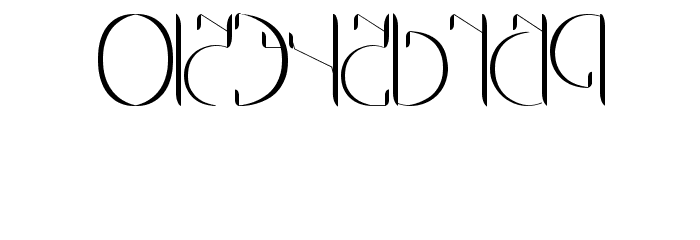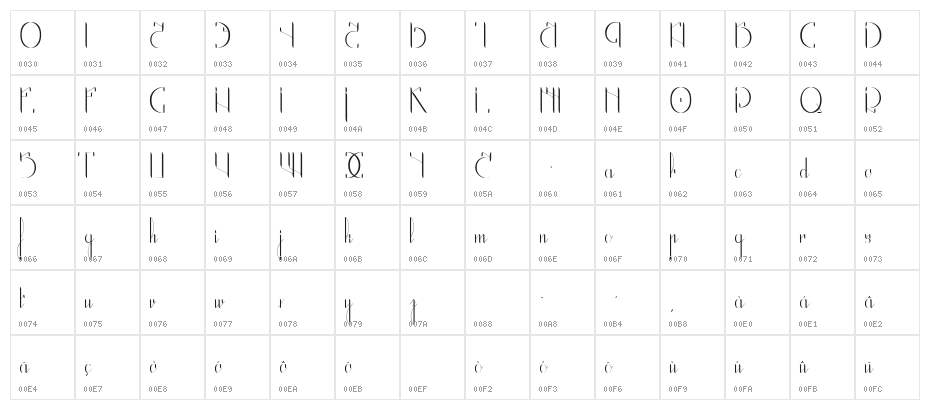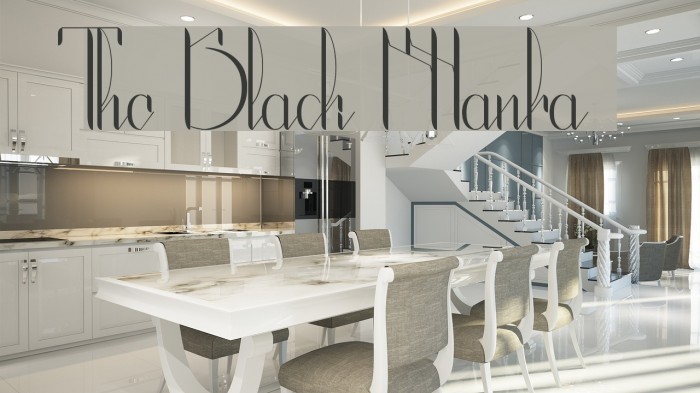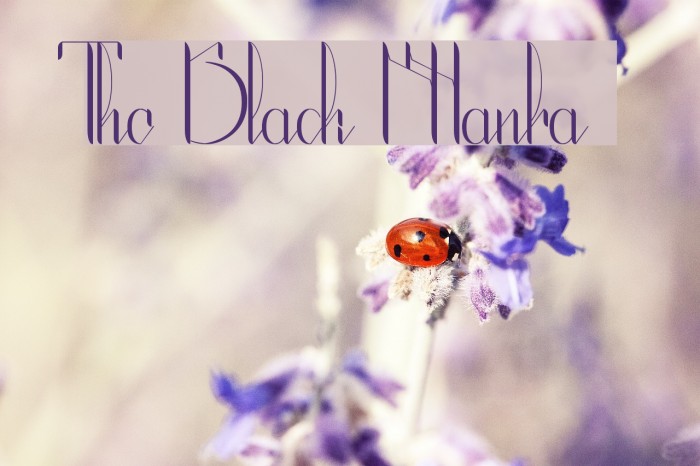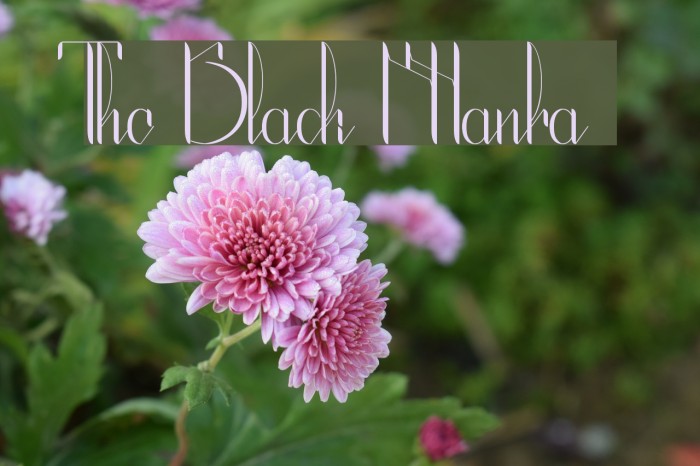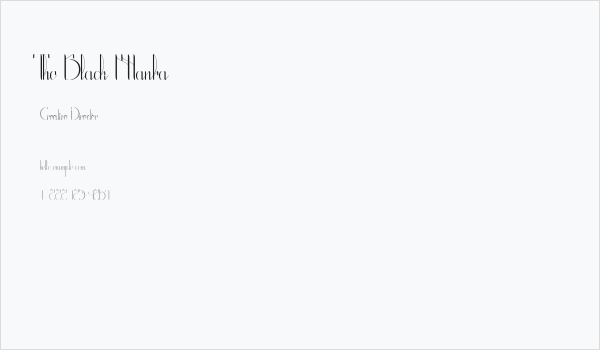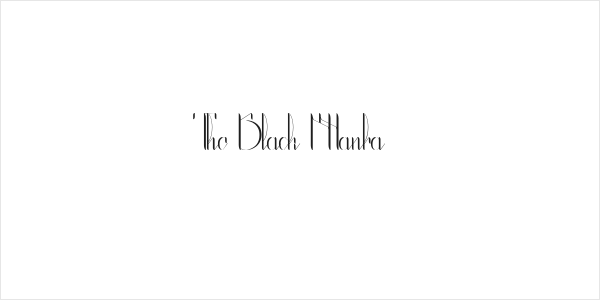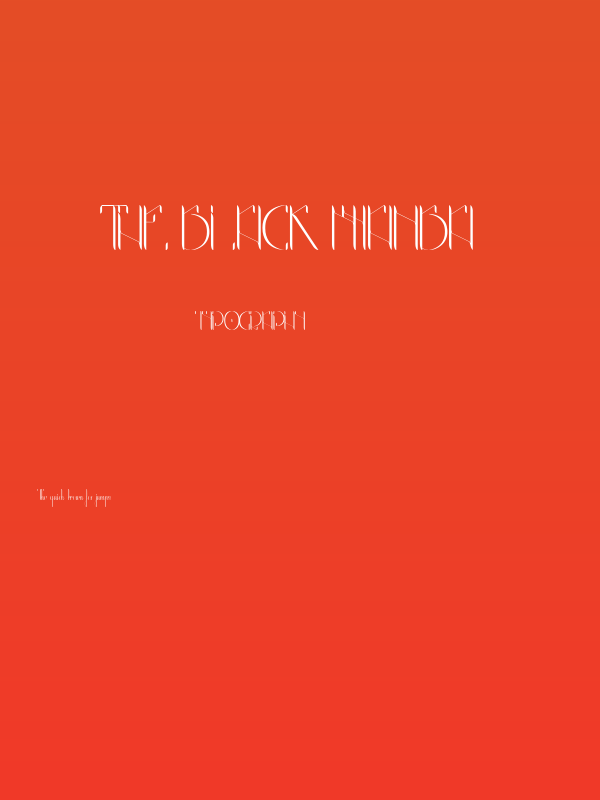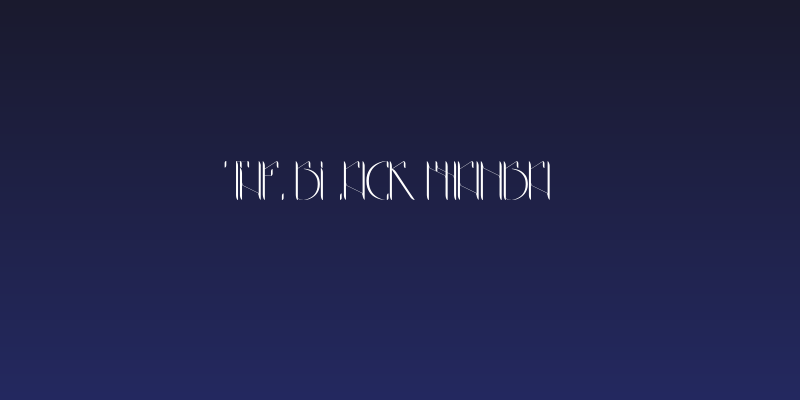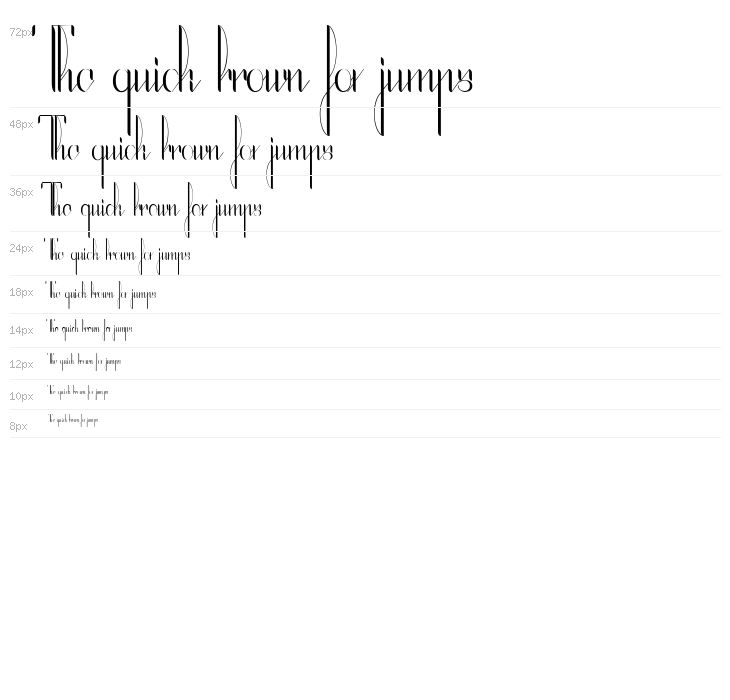
The Black Manba Font
The Black Manba Description
This font features a highly stylized and decorative design, characterized by its elongated and narrow letterforms. The strokes are thin with a high contrast between thick and thin lines, giving it an elegant and sophisticated appearance. The uppercase letters are particularly distinctive, with unique shapes and curves that create a sense of movement and flow. The lowercase letters maintain a similar style, with some characters featuring extended ascenders and descenders. The numerals and special characters are consistent with the overall aesthetic, adding to the font's cohesive look. This font is ideal for projects that require a touch of elegance and creativity.
| Overall Style | Elegant and Artistic |
| Proposed Projects | Ideal for luxury branding, wedding invitations, high-end product packaging, and artistic posters. |